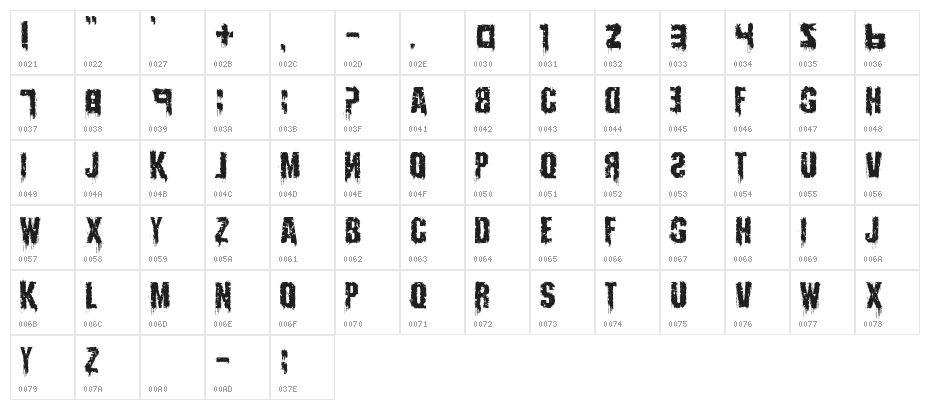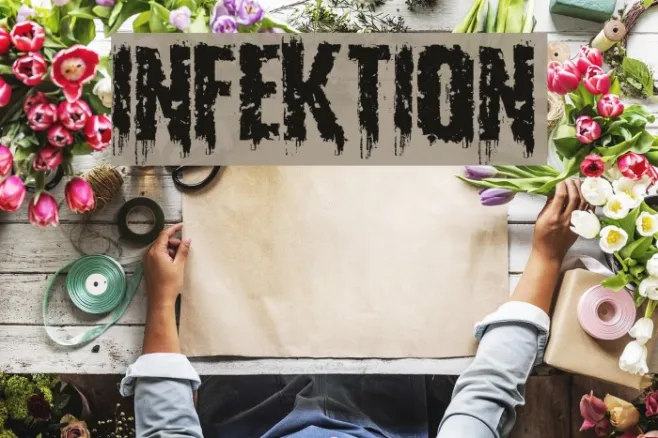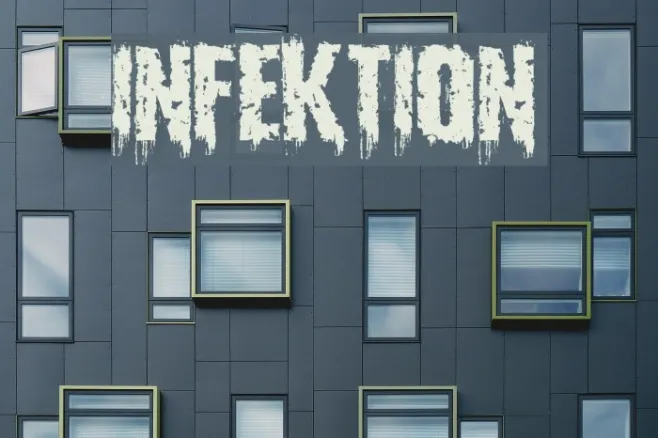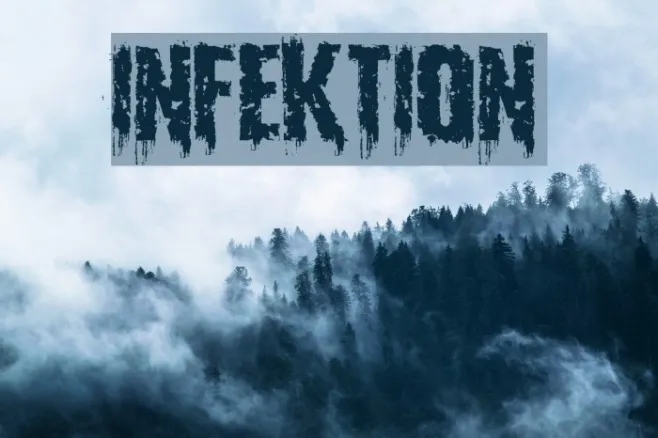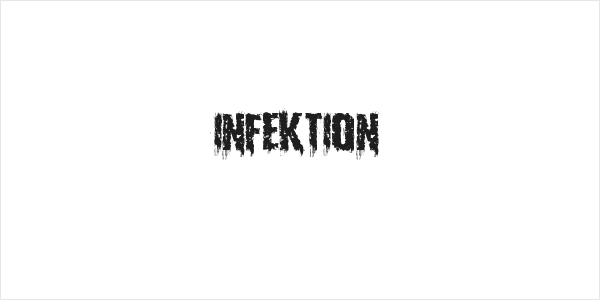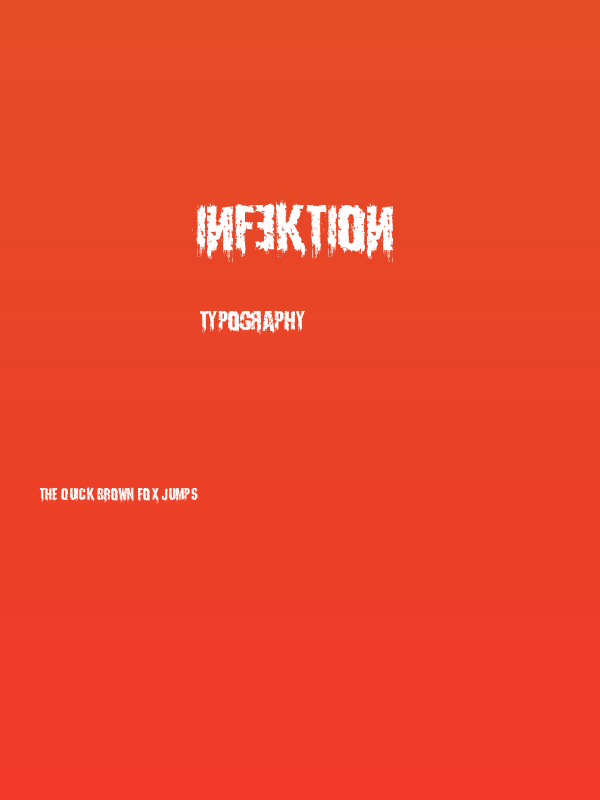
Infektion Font
Infektion Description
This font features a distressed, grunge aesthetic with rough, uneven edges and a textured appearance that mimics decay or erosion. The characters are bold and impactful, with a heavy emphasis on creating a chaotic and rugged look. The uppercase and lowercase letters maintain a consistent style, with each character appearing as if it has been weathered over time. Numbers and special characters follow the same design principles, ensuring a cohesive visual theme throughout. This font is designed to evoke a sense of edginess and rebellion, making it ideal for projects that require a bold statement.
| Overall Style | Grunge, Edgy, Distressed |
| Proposed Projects | Ideal for music album covers, horror movie posters, edgy branding, and streetwear designs. |